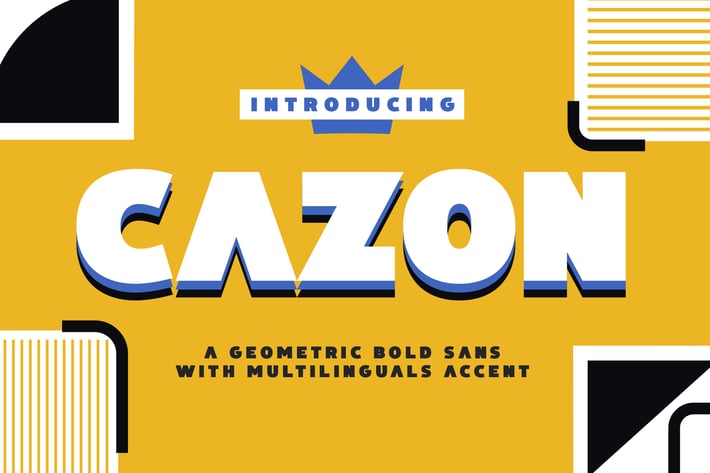
Cazon - Geometric Font
Introducing Cazon! a bold geometric san serif font from Drizy! It's suitable for your playful theme of your project.
Cazon Features:
Numeral
Ligatures